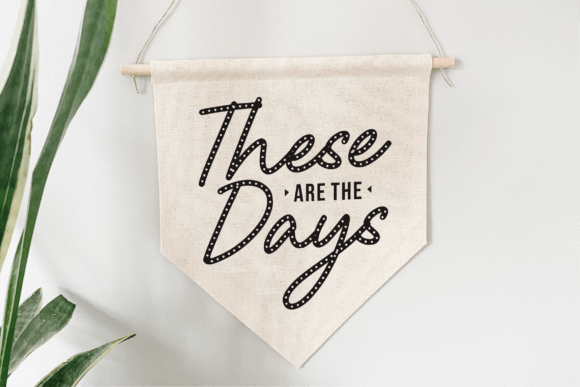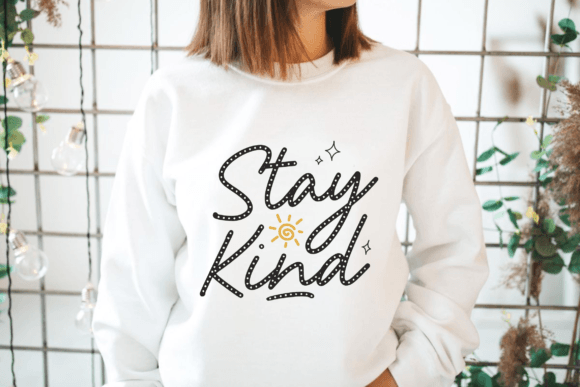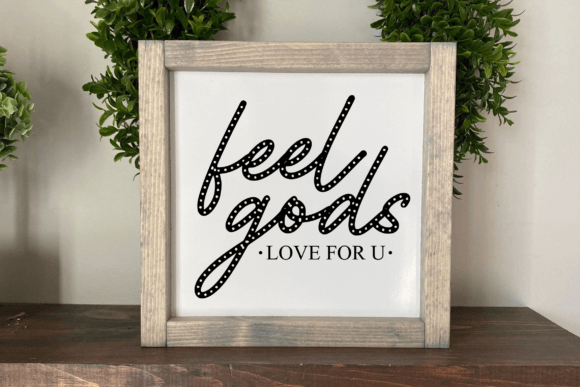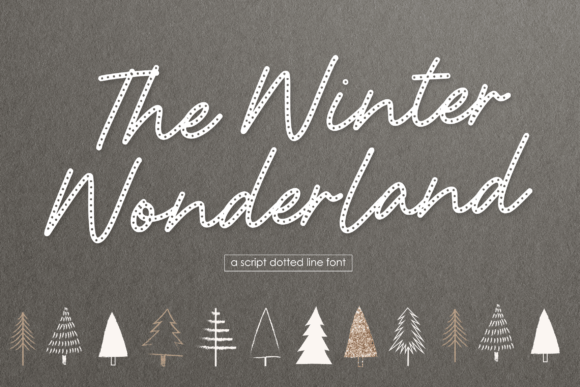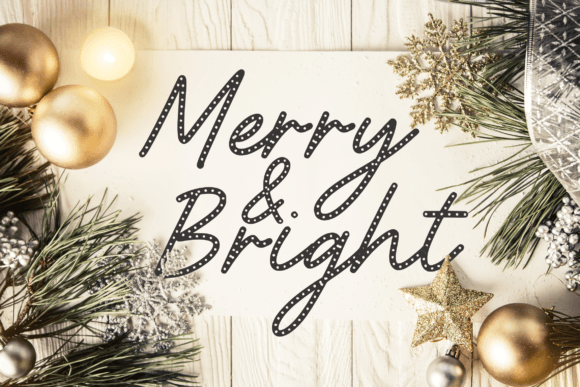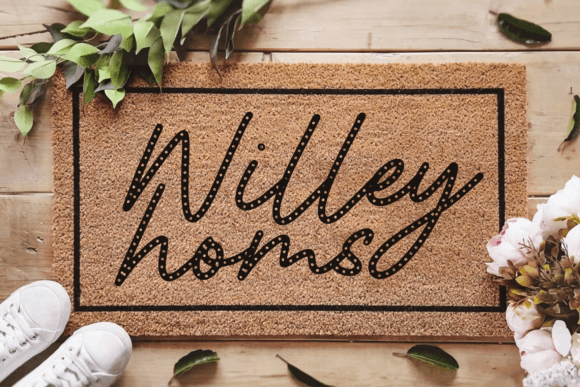
Introduction to Moomeecoco Font
Have you ever stared at a blank canvas, waiting for the perfect font to spark your creativity? That’s exactly what happened to many designers when they discovered the Moomeecoco Font. This unique, dotted line handwritten font is a game-changer for any creative project, from product packaging to branding and social media. With its high-quality design and transparent background, Moomeecoco Font is a valuable addition to any designer’s library.
As a design resource, Moomeecoco Font offers endless possibilities for expression and creativity. Whether you’re working on a magazine cover, a wedding invitation, or a social media post, this font is sure to make your design stand out. And the best part? It’s now available for free download, making it an accessible and valuable asset for designers of all levels.
So, what are you waiting for? Dive into the world of Moomeecoco Font and discover a new level of creative freedom. With its unique design and versatility, this font is sure to become a staple in your design arsenal.
Key Features of Moomeecoco Font
- High-quality design resource perfect for creative projects, with a unique and stylish aesthetic.
- With a transparent background, this font is ideal for use on images, graphics, and other design elements where opacity is crucial.
- Moomeecoco Font is available in a range of sizes, from 16px to 64px, making it suitable for use in a variety of design contexts.
- At 300 DPI resolution, this font is suitable for use in high-resolution designs, such as print materials and digital graphics.
- Its distinctive, hand-drawn style sets Moomeecoco Font apart from other fonts, making it a great choice for designers looking to add a unique touch to their creative projects.
Honest Review: Moomeecoco Font
- ✨ High-quality design: The Moomeecoco Font is well-designed and looks great on both digital and print materials.
- ✨ Transparent background: This feature is super useful for creating unique and eye-catching designs.
- ✨ Versatile: The font is perfect for a wide range of creative projects, from branding to editorial content.
One thing to note, however, is that the font may not be as extensive as some other design resources. ⚠️ Limited character set ⚠️ This might be a limitation for some users, especially those who require a large character set for their projects.
The Moomeecoco Font is a versatile design resource that can be used in various creative projects, such as social media graphics, blog posts, and presentations. It’s also great for branding and marketing materials, such as business cards and brochures.
To get the most out of the Moomeecoco Font, experiment with different font sizes, colors, and combinations to create unique and eye-catching designs. You can also use it in combination with other design elements, such as images and graphics, to create a visually appealing design project.